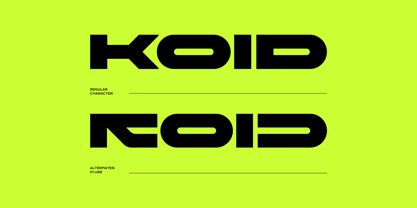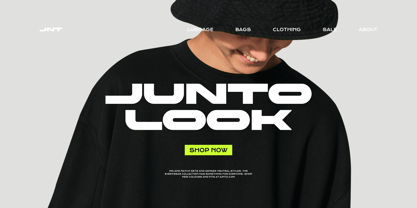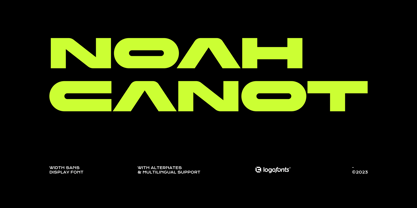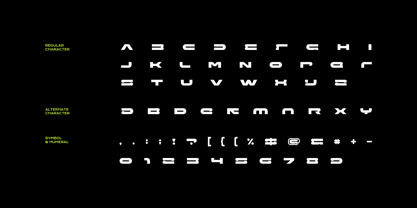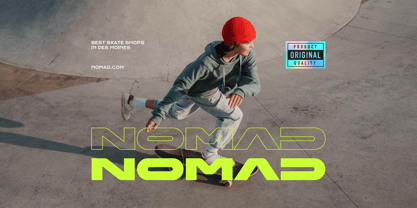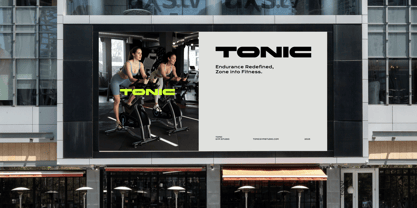
Noah Canot
by Logofonts
The Noah Canot Font Family was designed by Anna Safitri and published by Logofonts. Noah Canot contains 1 styles.
Noah Canot is a bold and innovative futuristic typeface that redefines the boundaries of modern design. With its clean, angular lines, minimalistic approach, and unique letterforms, this typeface channels the spirit of tomorrow. Perfect for high-tech brands, digital interfaces, and sci-fi-inspired projects, Noah Canot creates an unmistakable visual identity that feels ahead of its time. Its distinctive style blends geometric precision with dynamic energy, making it a versatile choice for both display typography and branding. Whether you’re designing a cutting-edge website, a futuristic logo, or immersive digital experiences, Noah Canot brings a sleek, modern edge to any creative project.
Designers: Anna Safitri
Publisher: Logofonts
Foundry: Logofonts
Design Owner: Logofonts